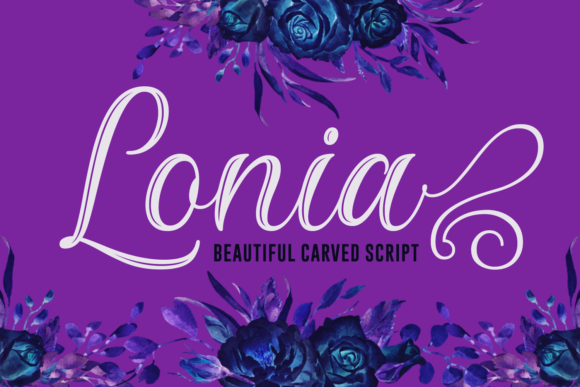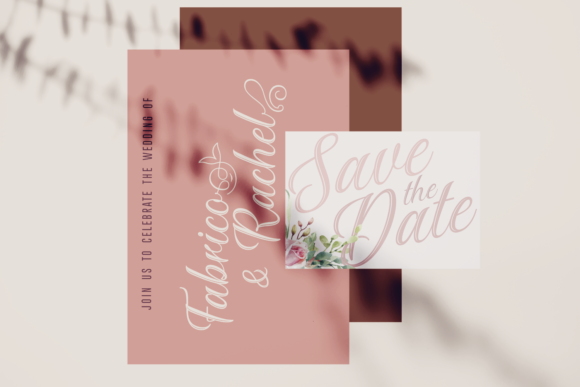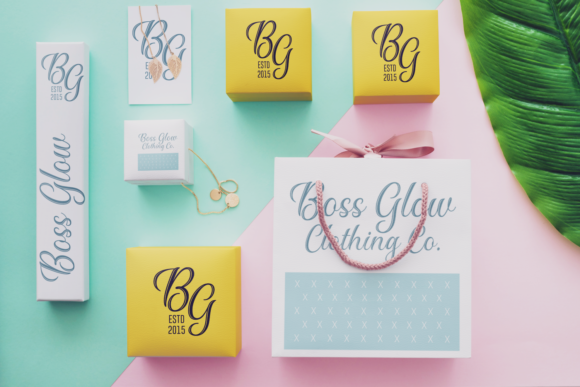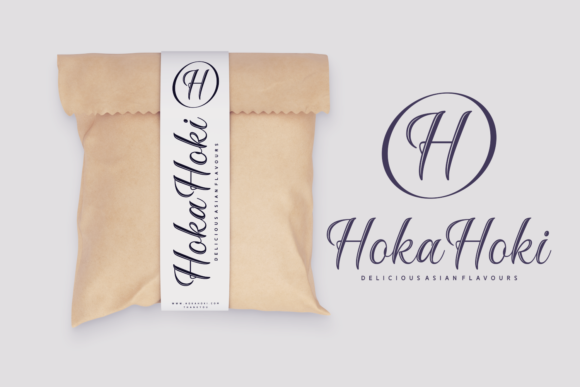
Lonia Font
About Lonia Font
Lonia is a beautifully carved handwritten font with amazing swashes. It’s perfect for adding an authentic spark to any design project!